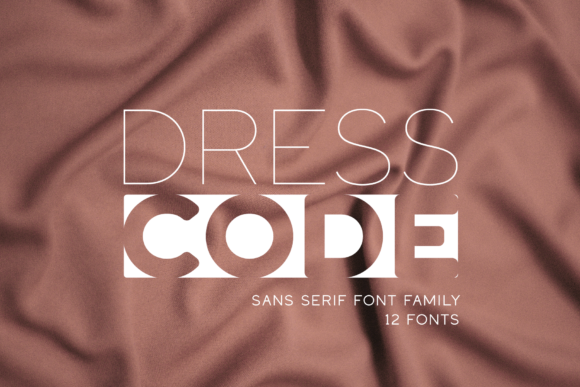
Unlocking Endless Creative Possibilities with the Dress Code Font
Have you ever stared at a blank canvas, itching to bring a design to life, but struggling to find the perfect font to match your vision? It’s a frustrating feeling we’ve all experienced at some point in our creative journeys. But what if I told you that there’s a font that can help you break free from that creative block and unleash your full design potential?
Enter the Dress Code Font, a modern sans-serif font family that’s been designed to provide endless creative options. With 12 fonts in 2 styles, each with 6 weights, this versatile font is perfect for designers who need a reliable partner to help them bring their designs to life.
Whether you’re a seasoned pro or just starting out, the Dress Code Font is a valuable addition to your design toolkit. Its unique glyphs and easy-to-read design make it the perfect choice for a wide range of projects, from digital interfaces to print materials.
Dress Code Font Key Features
- Font Family: A unique sans-serif font designed to evoke a sense of professionalism and sophistication.
- Font Size: Supports a wide range of font sizes, from 8pt to 72pt, allowing for flexibility in various design applications.
- Resolution: Optimized for high-resolution displays, ensuring crisp and clear text rendering on modern devices.
- Character Set: Includes a comprehensive character set, including Latin, Cyrillic, and Greek alphabets, as well as a range of punctuation and symbol characters.
Dress Code Font Review
First off, I want to say that I’m a big fan of the sleek and modern aesthetic that Dress Code Font brings to the table. ✨ The clean lines, the minimalist feel, and the overall sense of sophistication make it a great choice for any design project that needs a touch of high-end style. The font is versatile and works well in both print and digital applications.
One of the things that really stands out about Dress Code Font is its consistency. ✨ The font is well-designed and feels cohesive throughout, making it easy to use in a variety of contexts. I also appreciate the range of weights and styles available, which makes it easy to customize the font to fit your specific needs.
That being said, there are a few limitations to the font that are worth noting. ⚠️ One of the main drawbacks is that the font can feel a bit sterile or impersonal in certain contexts. If you’re looking for a font that’s going to add a lot of personality to your design, you may want to look elsewhere.
Overall, I think Dress Code Font is a solid choice for any design project that needs a modern and sophisticated look. While it may not be the best choice for every situation, it’s definitely worth considering if you’re looking for a clean and stylish font.
- Modern and sophisticated aesthetic
- Clean lines and minimalist feel
- Well-designed and consistent throughout
- Range of weights and styles available
- Works well in print and digital applications
Dress Code Font Practical Application Guide
Some popular use cases for Dress Code Font include:
- Formal invitations and announcements
- Wedding stationery and decor
- Business presentations and reports
- Fashion and lifestyle branding